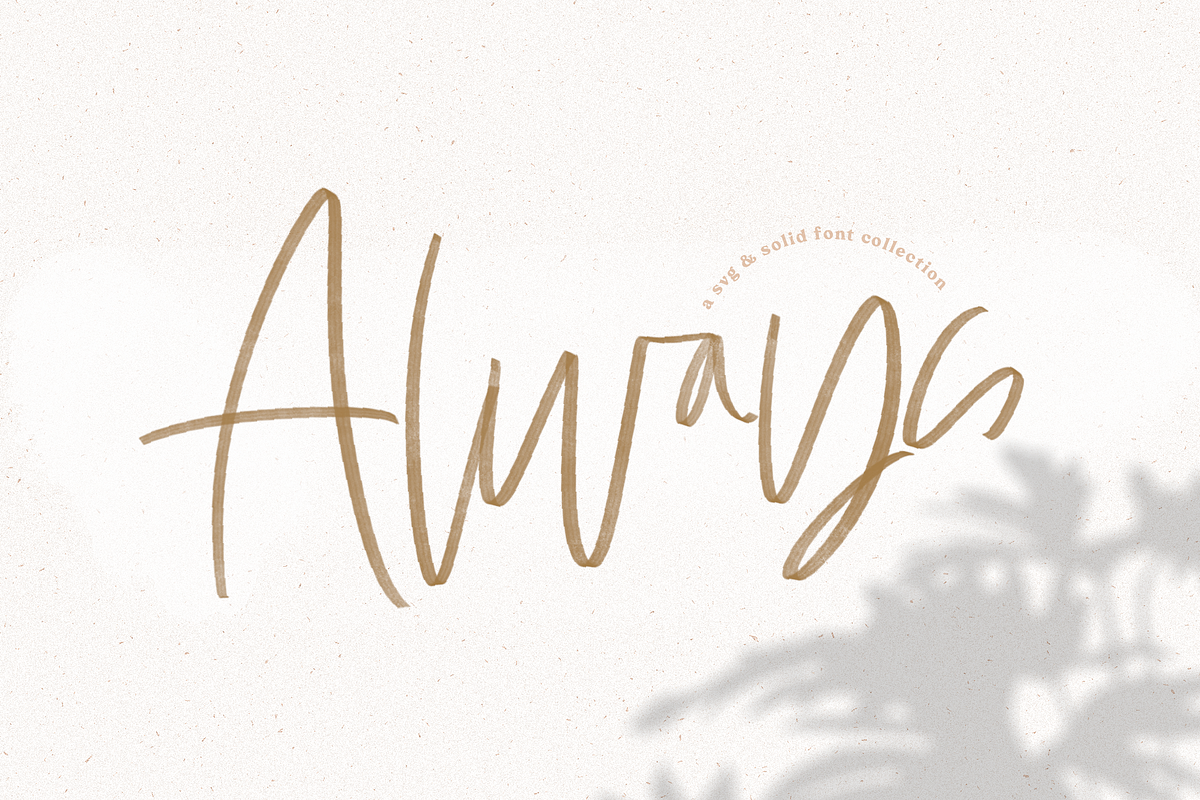
Always - SVG & Solid Script Font Free Download
Always - SVG & Solid Script Font Free Download is a stylish and versatile typeface that combines both SVG and solid script styles, giving you the flexibility to use detailed, colorful designs or a more traditional, clean look. Perfect for creating logos, branding materials, invitations, and social media content, this font offers a personal, handwritten touch with its elegant and flowing strokes. Whether you're working on a chic wedding invite, a personalized brand identity, or a creative campaign, Always - SVG & Solid Script Font Free Download lets you experiment with both font styles in personal projects before purchasing a commercial license. Add elegance, creativity, and versatility to your designs with this beautifully crafted SVG and solid script font.